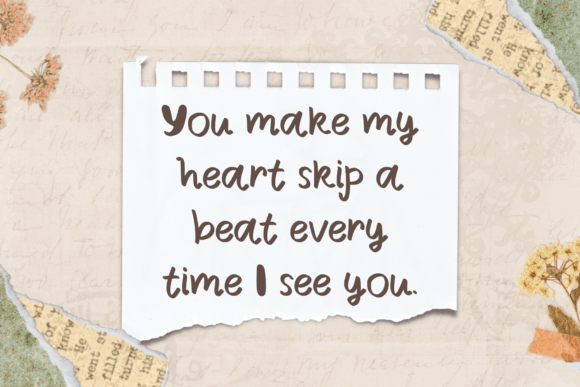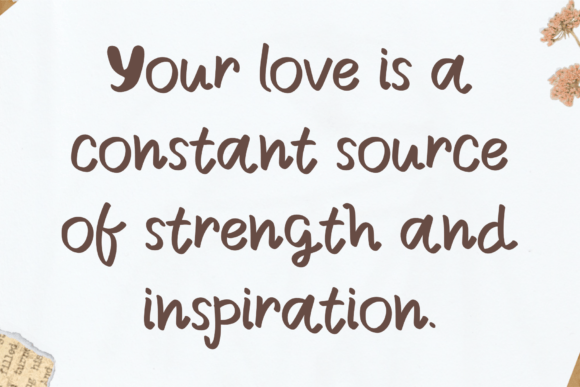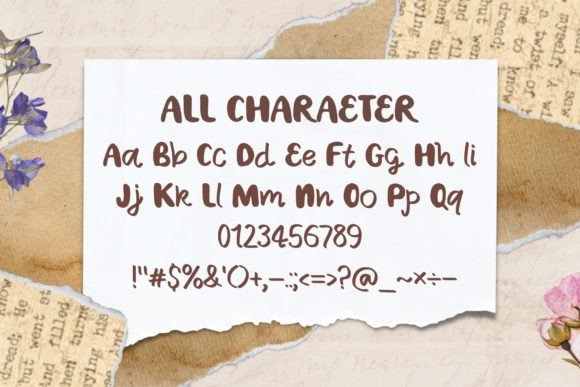
Introduction to Antique & Simple Font
Experience the timeless elegance of the Antique & Simple font.
With its classic and refined style, this font brings a touch of vintage charm to any design project Perfect for invitations, greeting cards, logos, and more, Antique&Simple font adds a sense of nostalgia and sophistication.
Antique & Simple Font offers exceptional quality and versatility, making it a valuable addition to your design toolkit. Whether you’re creating for personal projects or commercial use, Antique & Simple Font delivers professional results.